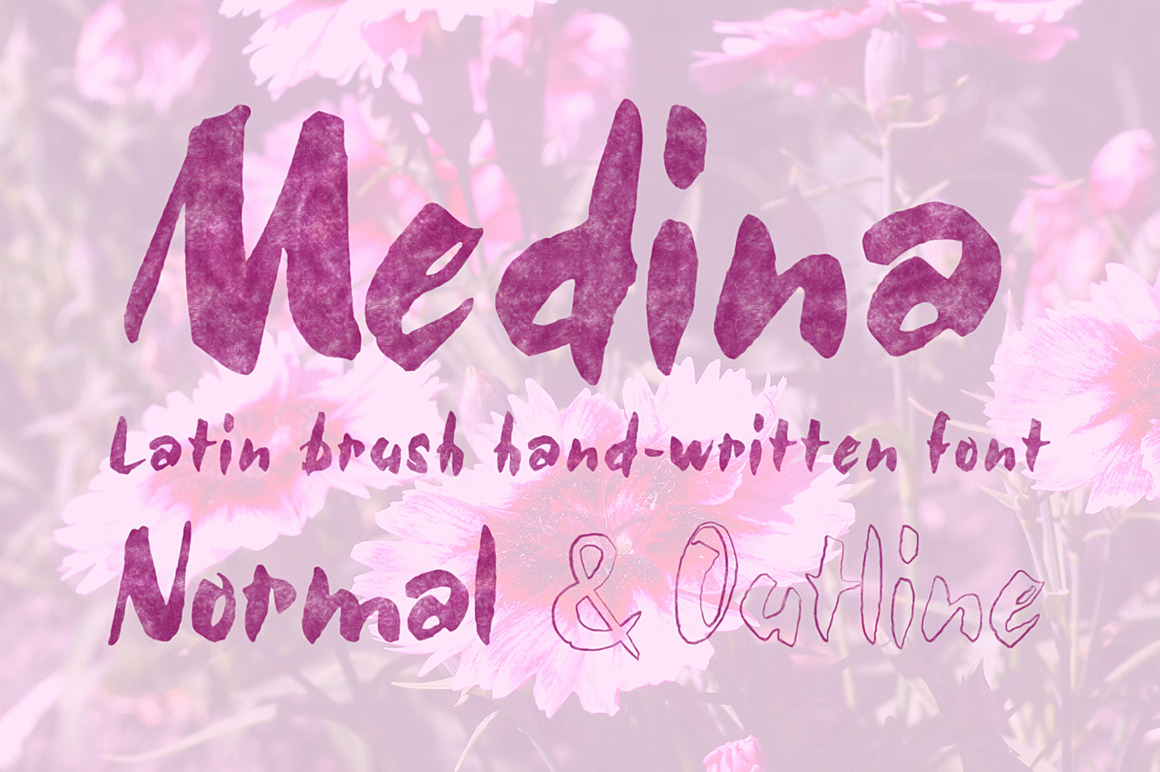
Medina Brush Font
The font family is most suitable for headlines of all sizes. Olive font is applicable for any type of graphic design in print graphics and perfect for logos, badges, t-shirts and other items like posters. Also I recommend it for Wedding Invitations and other romantic events.
- Medina Regular
- Medina Outline